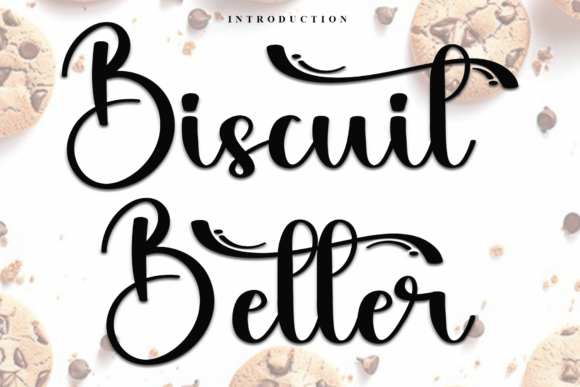
Biscuit Better Font: The Ultimate Guide to a Casual and Creative Typeface
In the world of typography, fonts play a crucial role in conveying the tone and personality of a design. When it comes to creating a warm and friendly atmosphere, few fonts can match the charm of Biscuit Better. This casual and creative font is perfect for personal projects, invitations, social media graphics, and any design that requires a relaxed and approachable feel.
What is Biscuit Better Font?
Biscuit Better is a hand-drawn font that boasts round, playful strokes, giving it a unique and endearing quality. Its charming aesthetic is reminiscent of a warm conversation with a friend, making it an excellent choice for designs that aim to establish a personal connection with the audience.
Whether you’re working on a personal project, creating invitations for a special occasion, or designing social media graphics, Biscuit Better is an excellent choice. Its versatility and friendliness make it an ideal font for a wide range of applications.
Key Features of Biscuit Better Font
- Casual and Creative: Biscuit Better’s playful strokes and hand-drawn aesthetic give it a unique and creative feel.
- Warm and Friendly: The font’s round strokes and relaxed vibe create a warm and friendly atmosphere, perfect for personal projects and social media graphics.
- Easy to Read: The font’s clear and legible design ensures that your message is conveyed effectively, making it perfect for body text and headings.
What Makes Biscuit Better Font Stand Out?
Biscuit Better’s unique blend of playfulness and warmth sets it apart from other fonts. Its hand-drawn aesthetic gives it a personal touch, making it perfect for designs that require a human touch.
The font’s versatility is another significant advantage. Whether you’re creating a social media graphic, an invitation, or a personal project, Biscuit Better can adapt to any design style, making it an excellent addition to your font library.
How to Use Biscuit Better Font in Your Designs?
Using Biscuit Better in your designs is straightforward. Here are a few tips to get you started:
- Pair it with Other Fonts: Combine Biscuit Better with other fonts to create a unique and visually appealing design.
- Experiment with Colors: Play around with different colors to find the perfect match for your design.
- Use it for Headings and Body Text: Biscuit Better is suitable for both headings and body text, making it a great choice for a wide range of designs.
Biscuit Better Font in Digital Design
In the digital age, fonts play a crucial role in creating engaging and interactive designs. Biscuit Better is an excellent choice for digital designers, thanks to its:
- Web-Friendly Design: The font is optimized for digital use, ensuring that it looks great on various devices and screens.
- Social Media Graphics: Biscuit Better is perfect for creating social media graphics, such as Facebook posts, Instagram stories, and Twitter headers.
- Email Marketing: Use Biscuit Better in your email marketing campaigns to add a personal touch and create a warm and friendly atmosphere.
Biscuit Better Font in Print Design
Biscuit Better is not just limited to digital design. Its unique aesthetic makes it an excellent choice for print design, including:
- Invitations: Create beautiful and personalized invitations for special occasions, such as weddings, birthdays, and baby showers.
- Posters: Use Biscuit Better to create eye-catching posters for events, promotions, and marketing campaigns.
- Business Cards: Add a personal touch to your business cards with Biscuit Better, making them stand out from the crowd.
Tips and Tricks for Using Biscuit Better Font
Here are a few tips and tricks to help you get the most out of Biscuit Better:
- Experiment with Font Sizes: Play around with different font sizes to create visual hierarchy and emphasis.
- Use it for Titles and Headings: Biscuit Better is perfect for titles and headings, adding a touch of personality and whimsy to your design.
- Don’t Overuse it: While Biscuit Better is a beautiful font, it’s essential to use it judiciously to avoid overwhelming your design.
Biscuit Better is a unique and versatile font that can add a touch of warmth and friendliness to any design. Its playful strokes, hand-drawn aesthetic, and PUA Encoded glyphs make it an excellent choice for a wide range of applications, from personal projects to digital and print designs.
Whether you’re a designer, entrepreneur, or simply someone who appreciates great typography, Biscuit Better is an excellent addition to your font library. So, go ahead and get creative with Biscuit Better – your designs will thank you!
- What is Biscuit Better font? Biscuit Better is a casual and creative font that exudes warmth and friendliness.